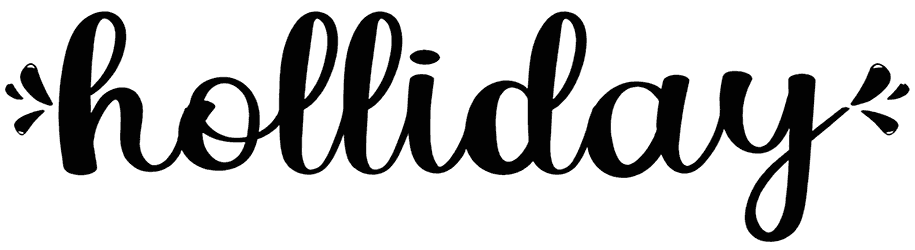
Holliday Font
If you want a summary and a soft look for your words, this script font might be perfect for you. Every character in the Holliday font is built big with handwritten brush effects on them that give a youthful, bright, and cheery feeling to your writing.
You can use this spring font for teenage movie and book titles, Halloween posters and flyers, channel banners, and graffiti texts, and have a perfect look through its curvy elements.
Holliday is a sweet and delicate handwritten font. Dainty and joyful, this font will be ideal for writing wedding invitations, cards or any other design that may need a romantic, personalized touch!